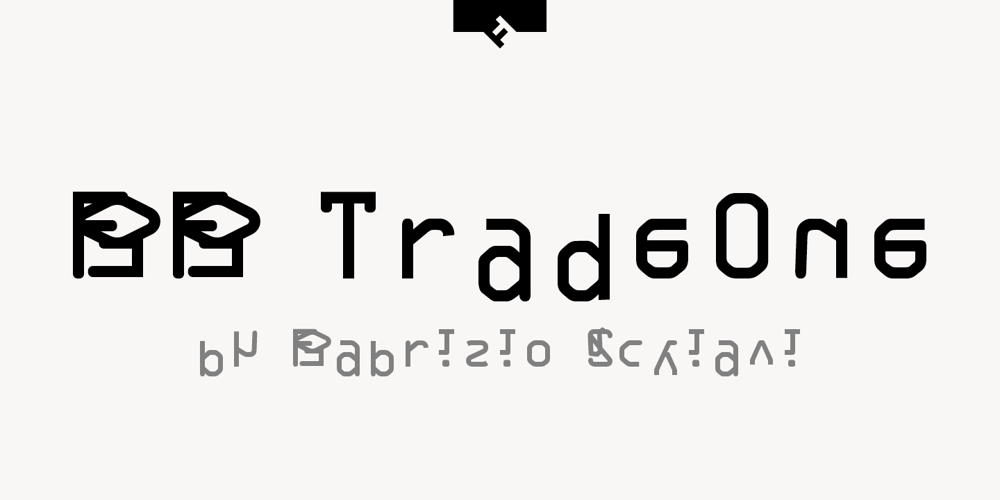
FF TradeOne
FF TradeOne font
FF TradeOne Font Family was designed by Fabrizio Schiavi and published by FontFont. FF TradeOne contains 1 styles and family package options. Italian type designer Fabrizio Schiavi created this display FontFont in 1994. The font is ideally suited for music and nightlife and poster and billboards. FF TradeOne provides advanced typographical support with features such as ligatures. It comes with proportional lining figures.